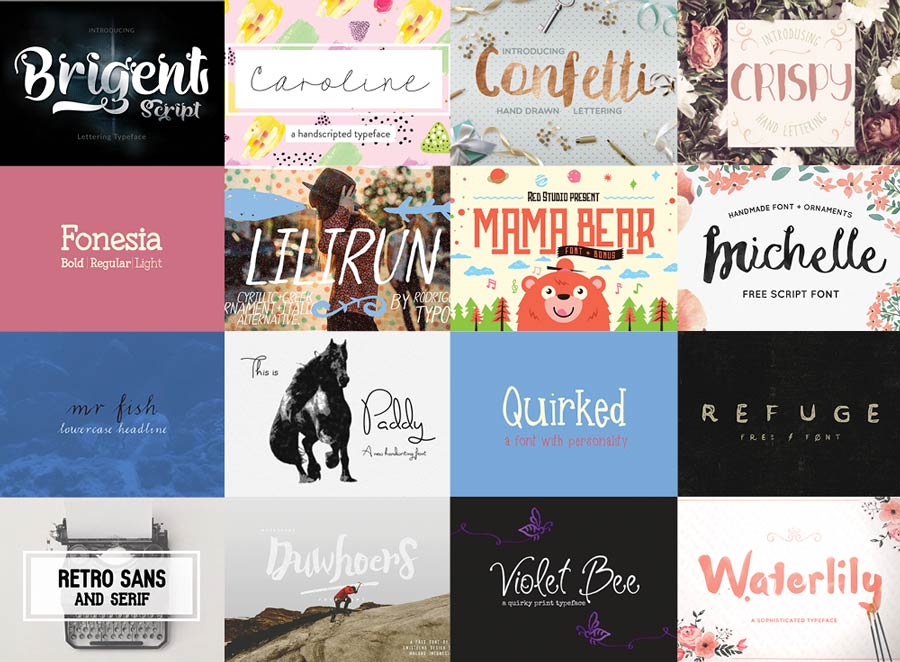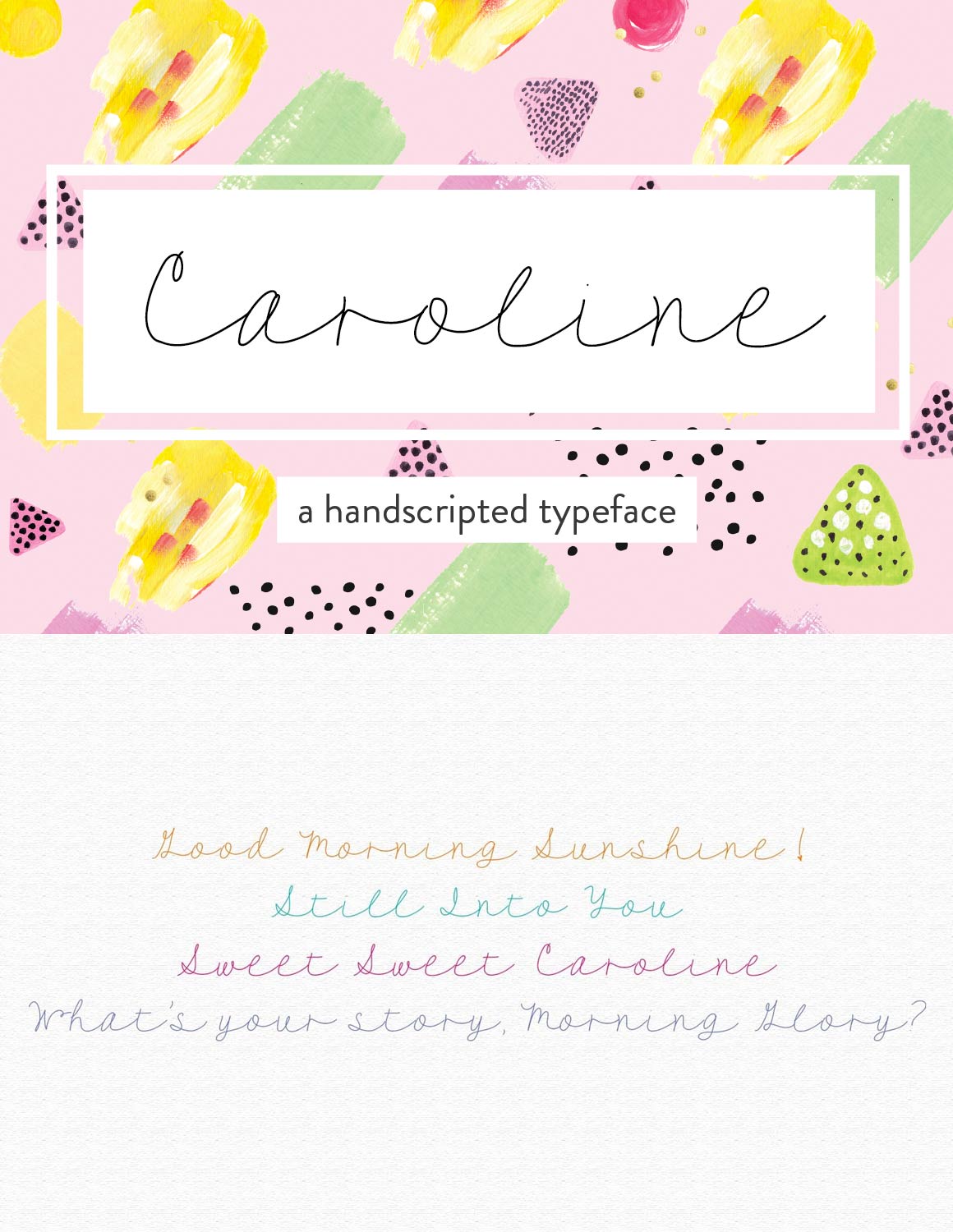
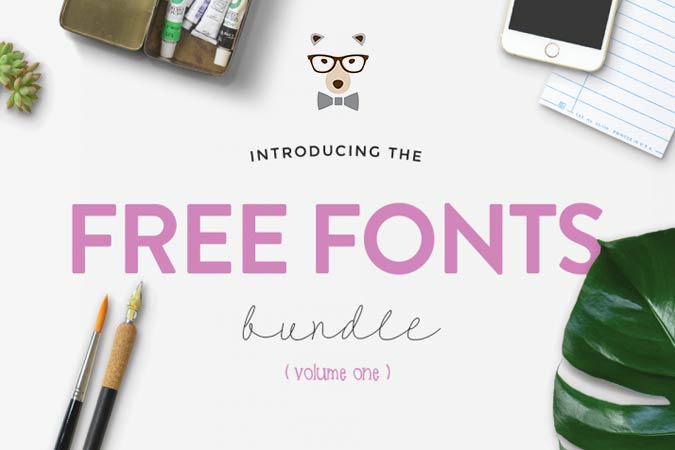
As an appreciation to everyone that support The Hungry JPEG, a portal that you can get free and premium design products, they released a font bundle that cost you nothing. This font bundle comes with 16 different typefaces of different styles where many of them were leaning towards brush or handlettering fonts.